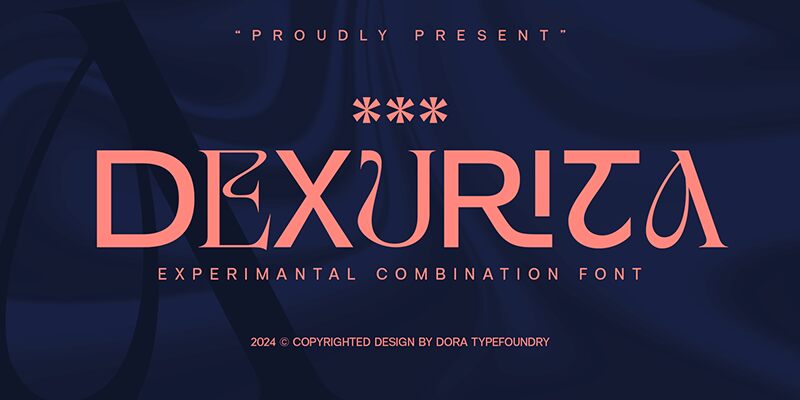
Dexurita font family supports artistic expression in contemporary applications thanks to its eye-catching details. Thanks to its two stylish font styles designed by Dora Typefoundry, Dexurita combines unexpected and fascinating flourishes that transform any plain font writing into a work of decorative art. This font enables you to engage your readers with the consistency and originality it displays.
When certain words or characters need to be highlighted, presenting them using Dexurita will undoubtedly make them stand out. The potential is always there but the context with which this font can be used includes set rules like the titles of video games or movie posters, combinations of the latter, comic books, magazine covers or editorials, product branding and artwork, and special occasional greetings cards/invitations like weddings or Christmas.